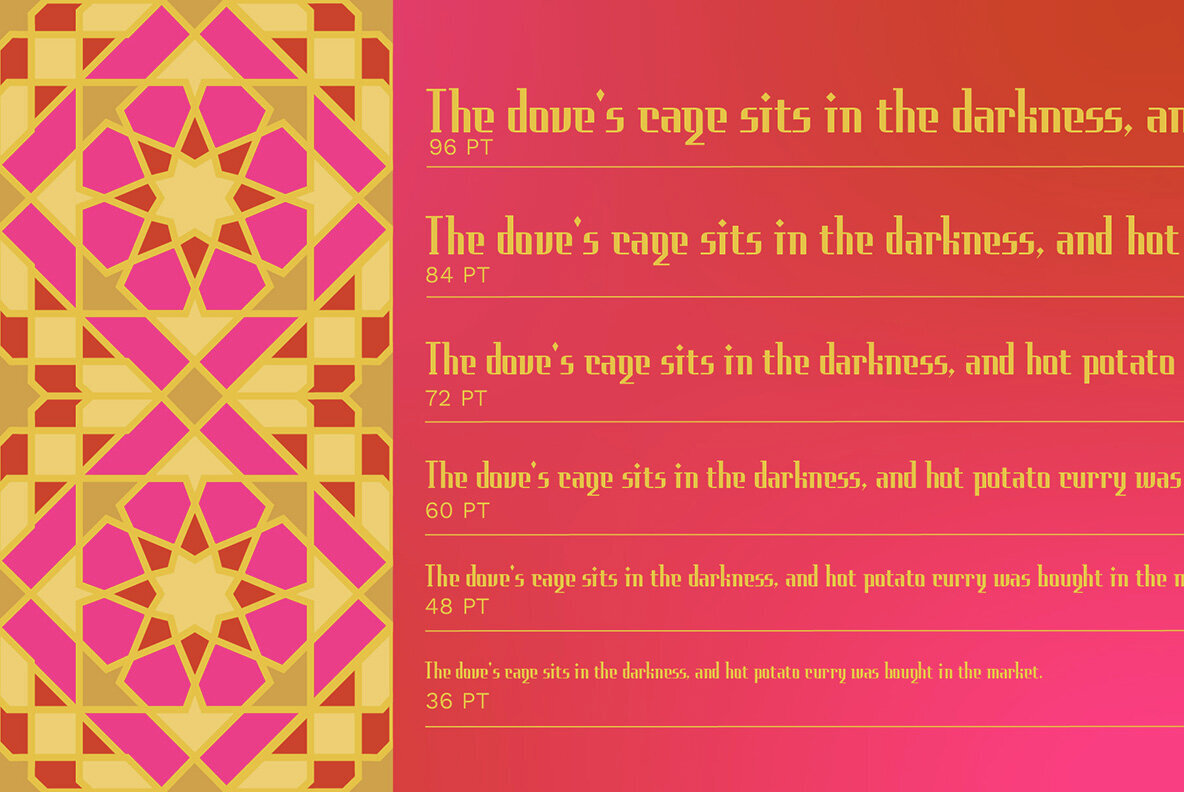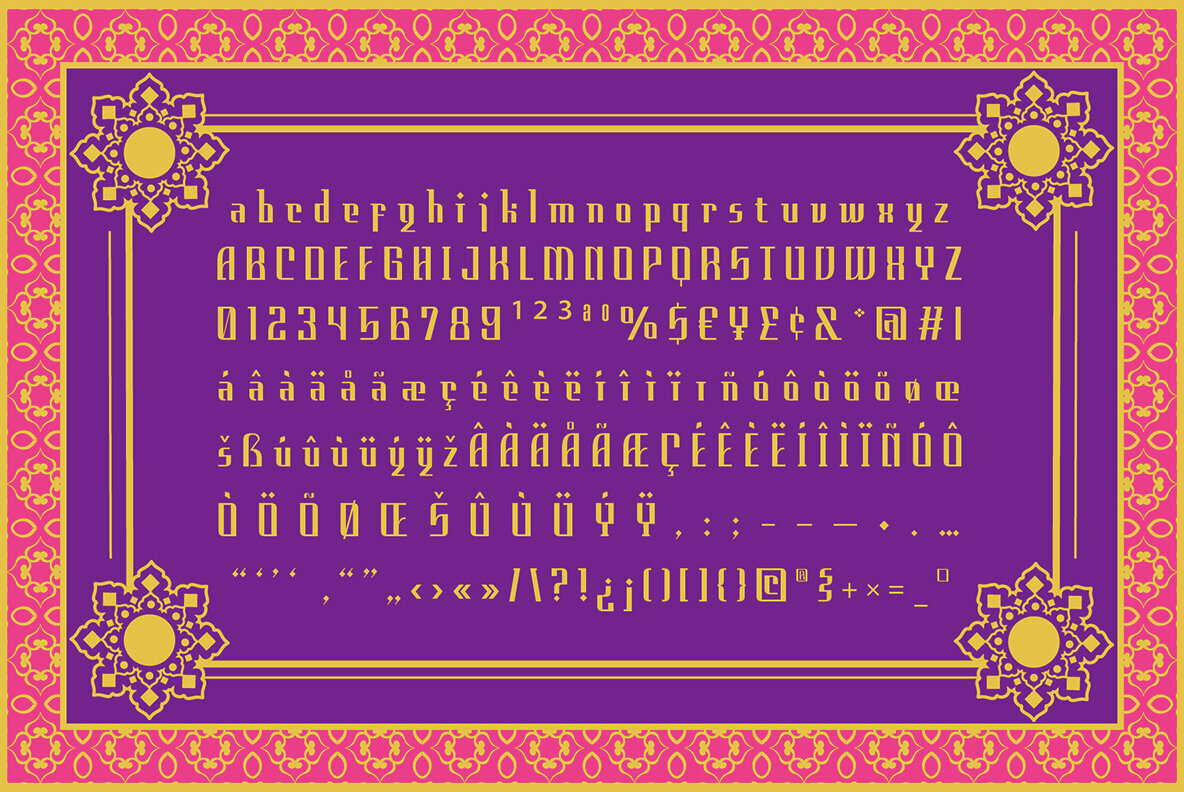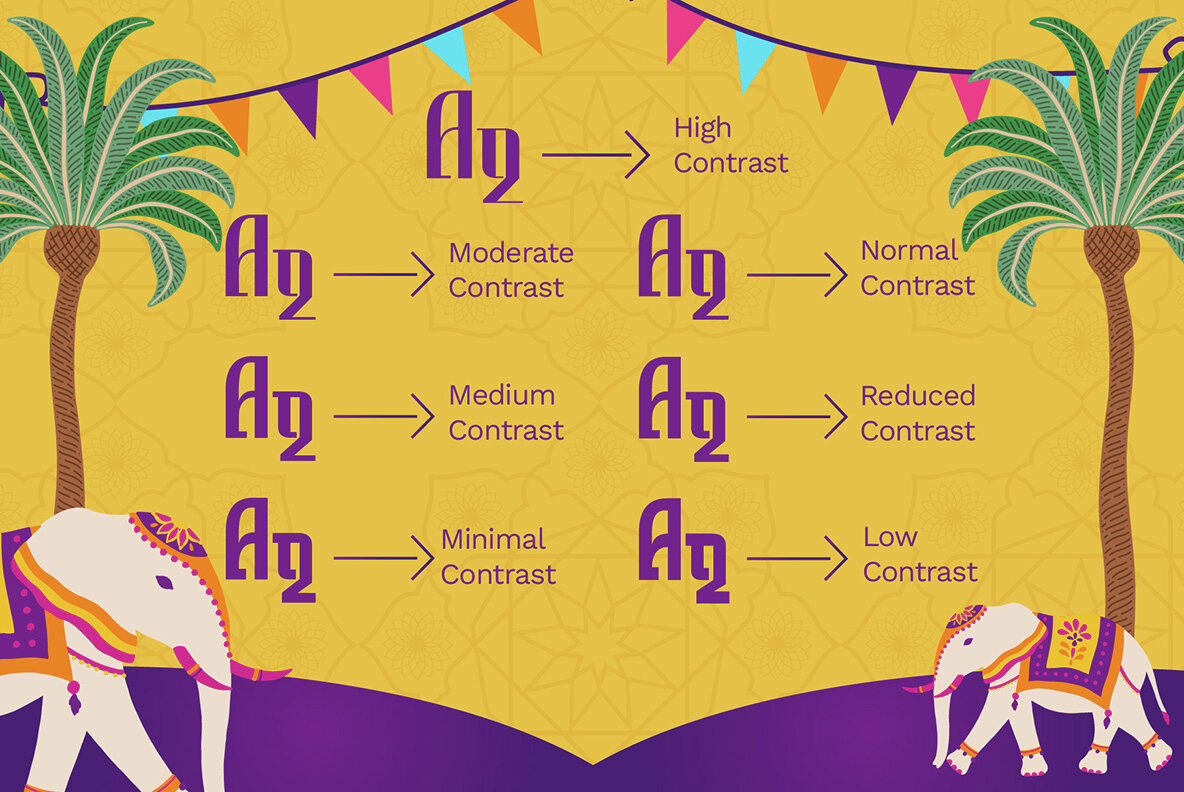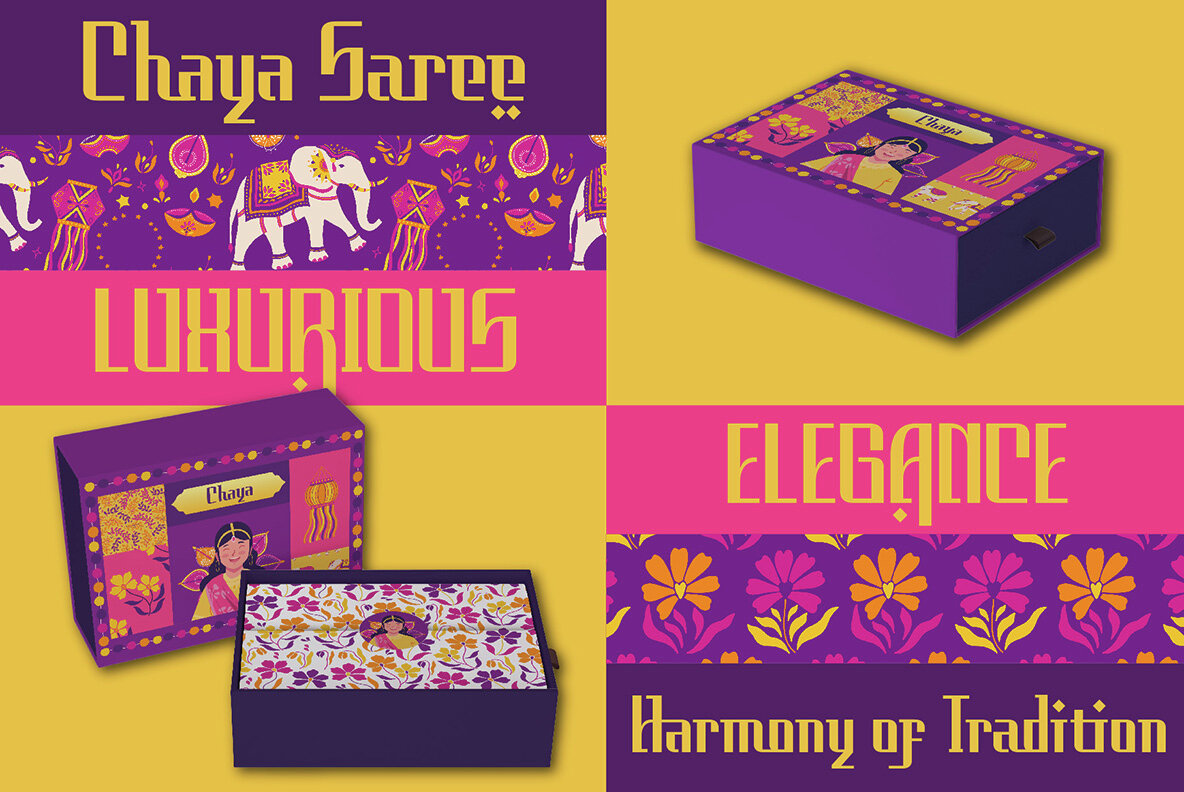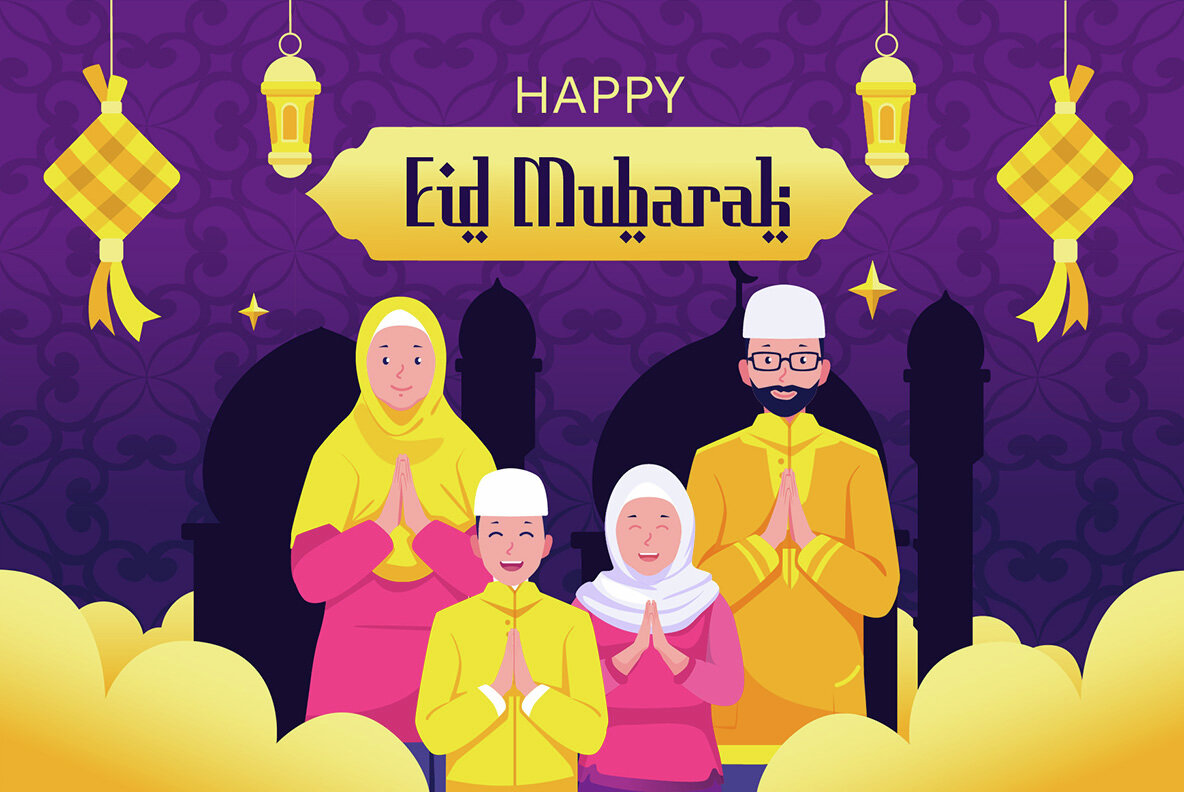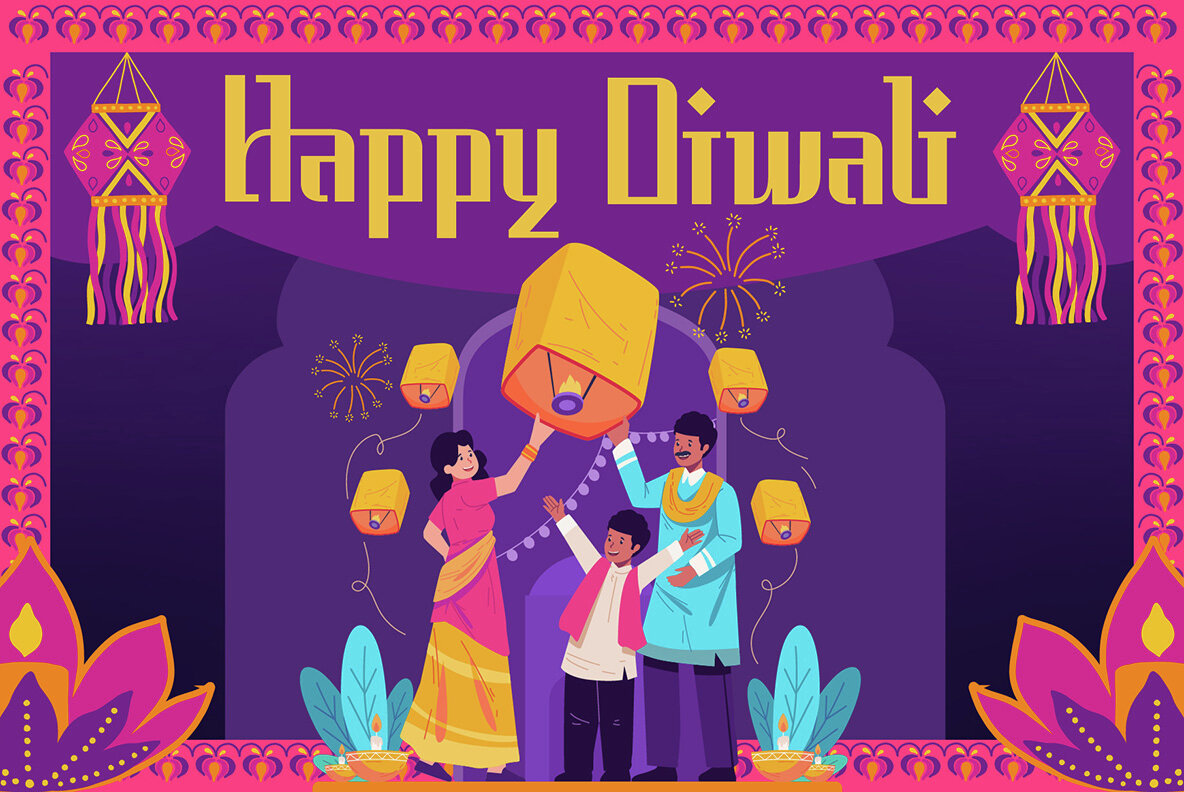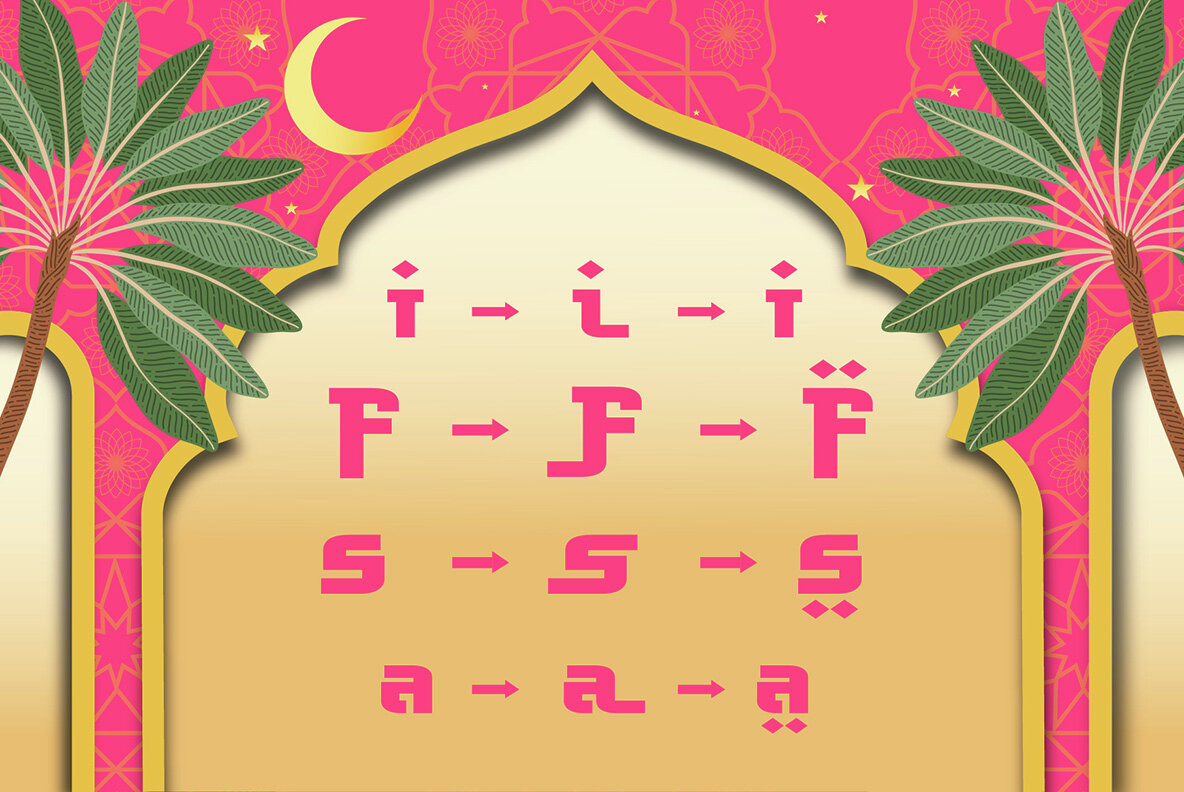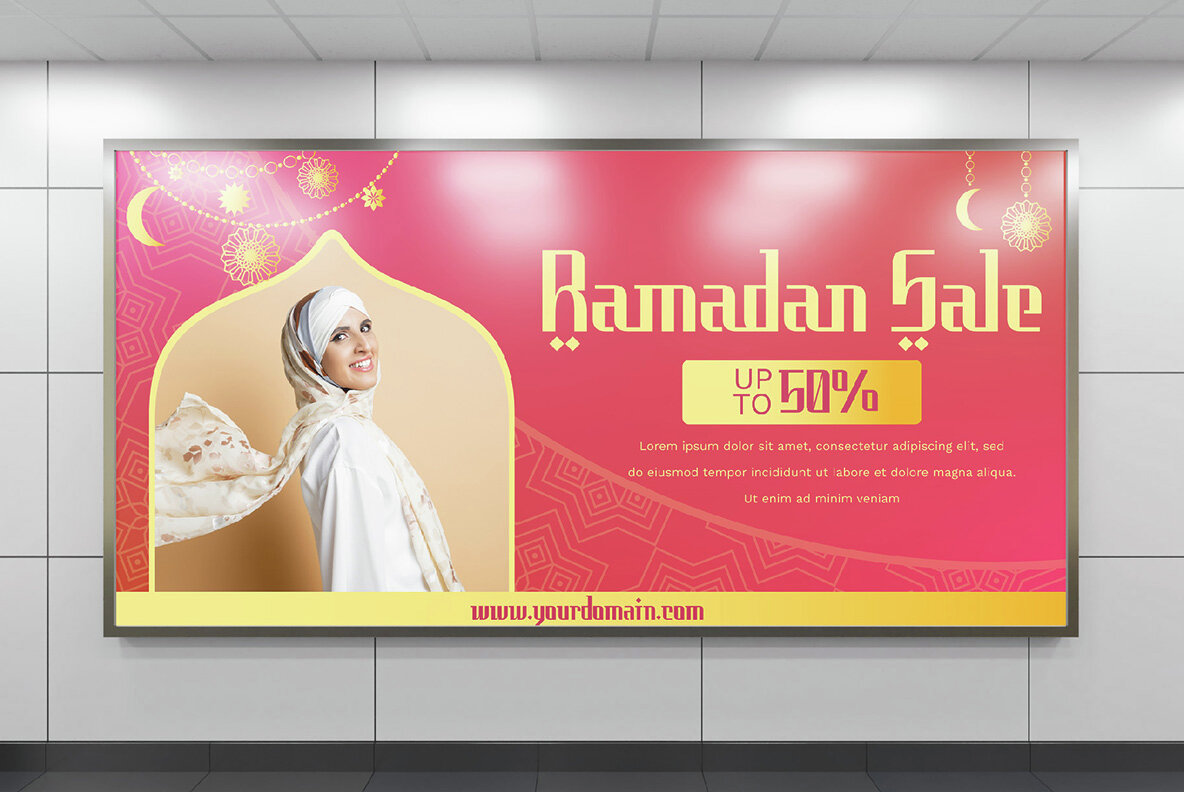
Indikhala Font
Introducing Indikhala: Celebrate Ramadhan with Blazing Colors and Traditions! Indikhala, a festive and multicultural Middle East inspired font, brings the luminous and gentle essence of Ramadhan Kareem to your designs. Its unique monoline style, combined with contrasting weights, captures the eccentric and quirky spirit of the celebration. Ornate and decorative, Indikhala adds an artistic and expressive touch to websites, packaging, logos, posters, and social media posts, making every project stand out with class and originality. Experience the superiority of Indikhala's experimental design, crafted to make your designs stand out in the celebration of traditions. This font family, available in high to minimal contrast variants, embodies the festive mood with blazing colors. From Quranic verses to social media posts, Indikhala offers versatility, ensuring your projects radiate with the warmth of a bonfire and the richness of Indian fire. Supported Languages: Bosnian, Catalan, Czech, Danish, German, English, Spanish, Estonian, Finnish, French, Bergen, Wild, Irish, Mango, Croatian, Hungarian, Icelandic, Italian, Lithuanian, Tan, Latvian, Maltese, Dutch, Norwegian, Polish, Haas, Portuguese, Romanian, Slovak, Slovenian, Albanian, Swedish, Turkish. Features :